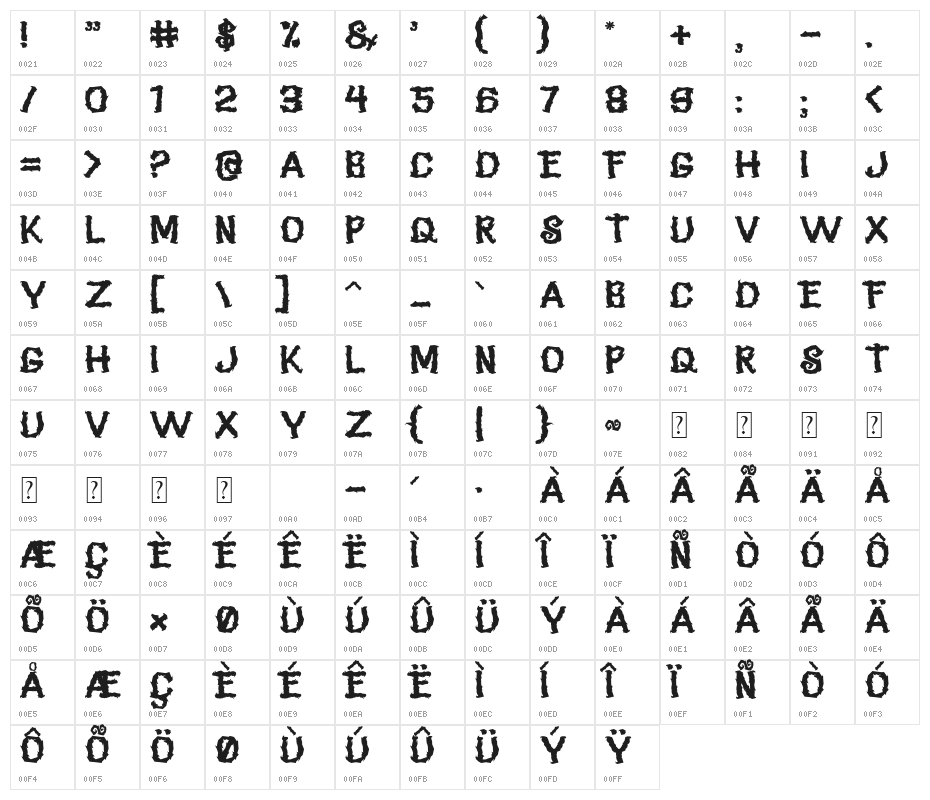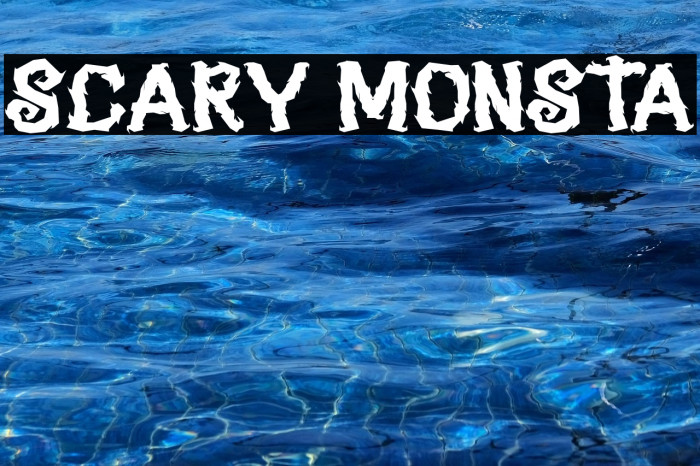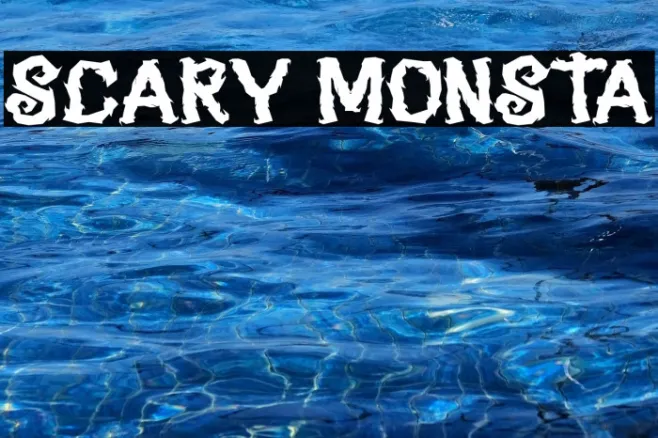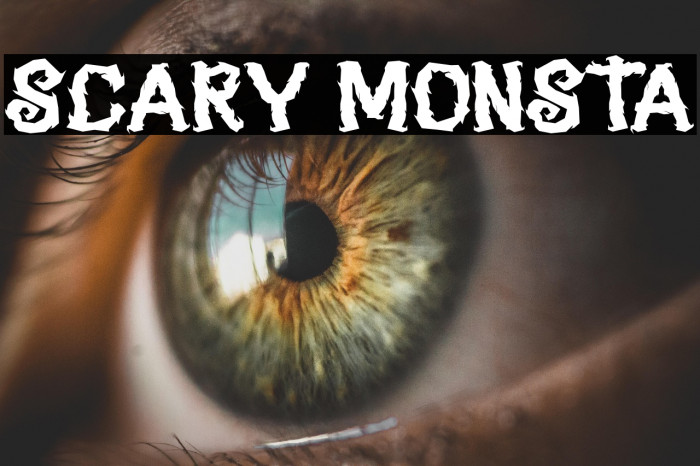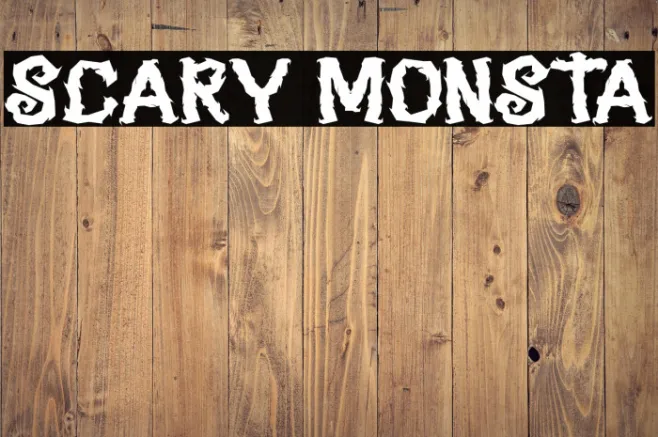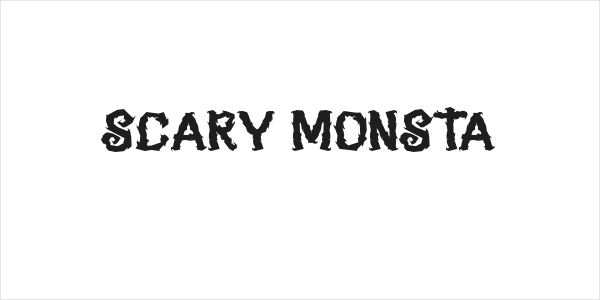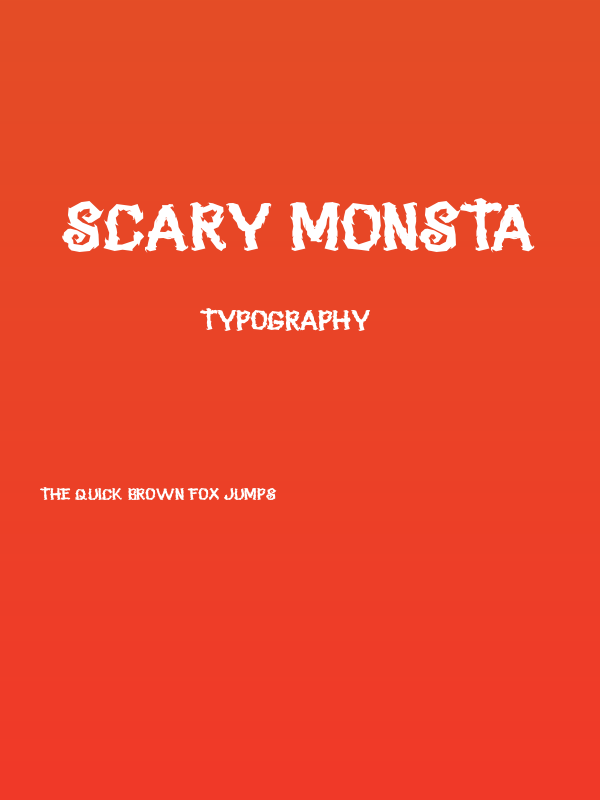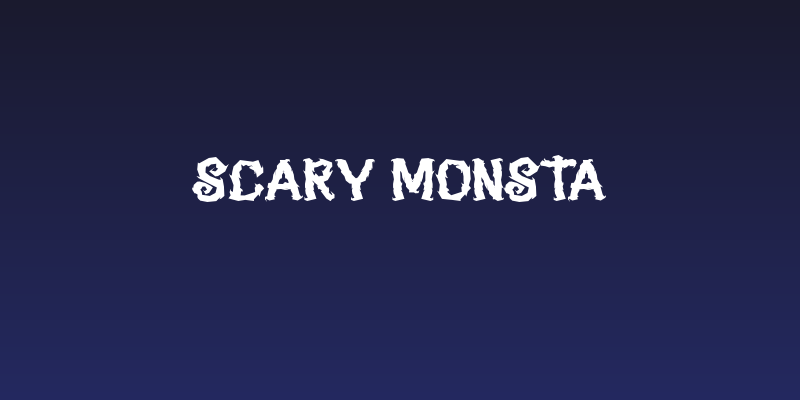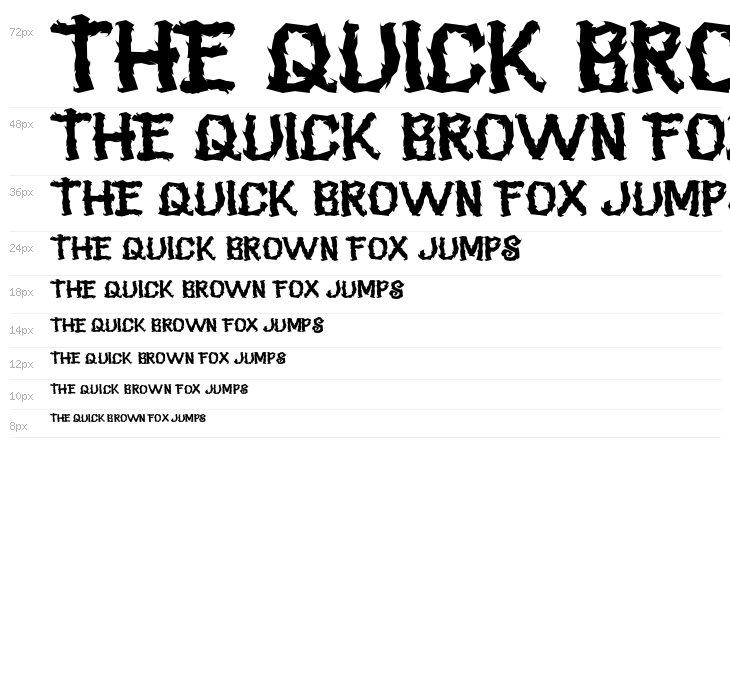
SCARY MONSTA Font
SCARY MONSTA Description
This font features a bold and jagged design, reminiscent of torn paper or rough edges, giving it a distinctly edgy and aggressive appearance. The characters are heavily stylized with irregular outlines that create a sense of movement and chaos. The uppercase and lowercase letters maintain a consistent style, with sharp angles and uneven strokes that add to the overall rugged aesthetic. Numbers and special characters follow the same design principles, ensuring a cohesive look across all elements. This font is perfect for projects that require a dramatic and impactful visual statement.
| Proposed Projects | Ideal for horror-themed designs, Halloween posters, edgy branding, and any project needing a dramatic, eye-catching font. |